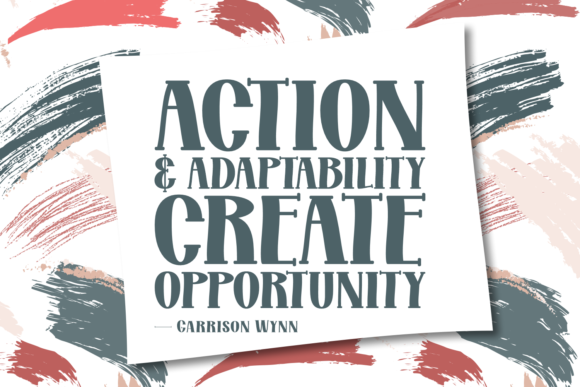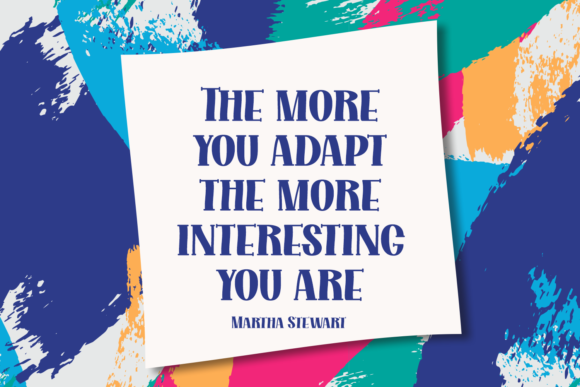
Adaptive Cange Font
About Adaptive Cange Font
Adaptive Cange is a bold and eye-catching script font. Its natural and unique style makes it incredibly fitting to a large pool of designs. The only limit is your imagination!